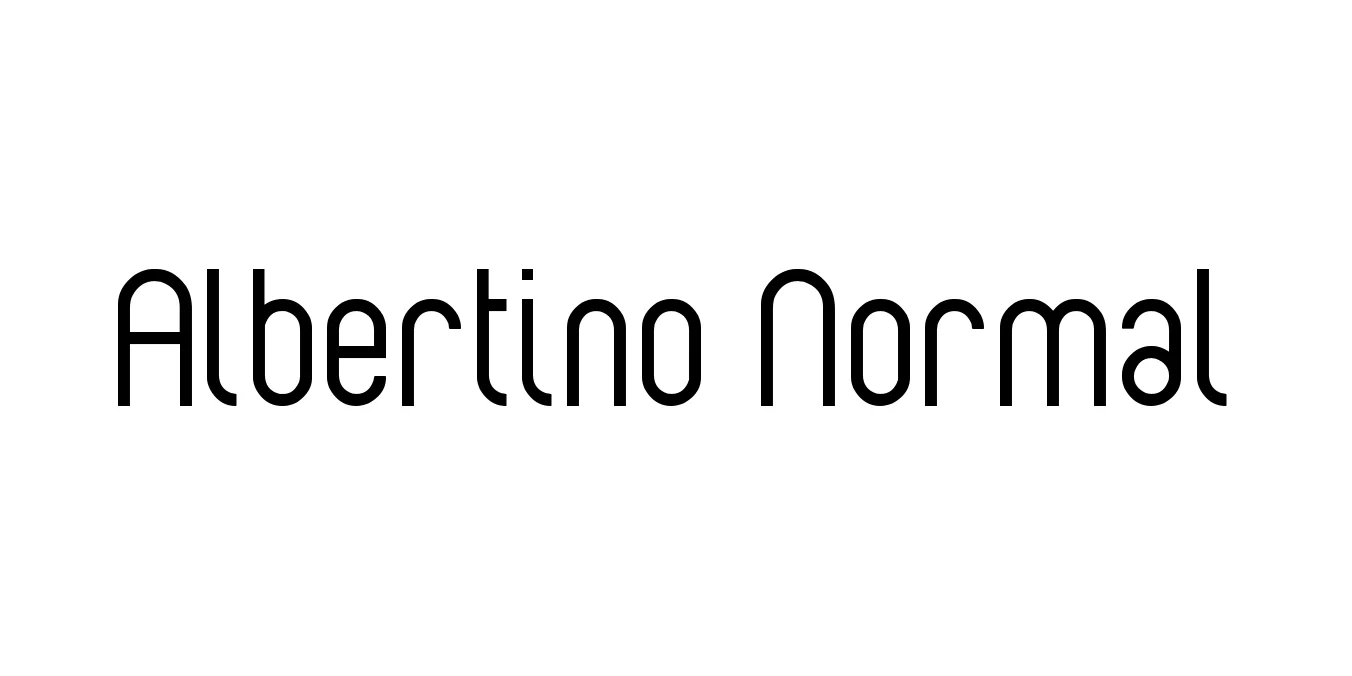
Albertino Normal
Designed by Albert-Jan Pool
Albertino Normal is a sophisticated humanist sans-serif typeface that was meticulously crafted to bridge the gap between classic calligraphic roots and modern geometric precision. Developed by the renowned designer Albert-Jan Pool, this font family is celebrated for its exceptional legibility and balanced proportions, making it a staple for designers seeking a clean yet soulful typographic voice.
The typeface features distinct open apertures and a moderate x-height, which ensures that it remains highly readable even at smaller point sizes. Whether used in high-resolution print or low-resolution digital displays, Albertino Normal maintains its structural integrity, providing a professional and inviting aesthetic for corporate reports, signage, and extensive body text.
Albertino Normal Best Uses
Ideal for creating a trustworthy and modern brand identity for businesses.
Perfect for body text in magazines, books, and digital journals due to high readability.
Highly effective for mobile apps and web UI elements where clarity is essential.
Strong structural forms make it suitable for professional wayfinding and architectural graphics.